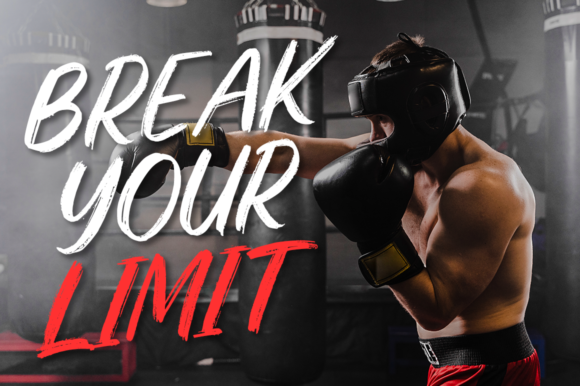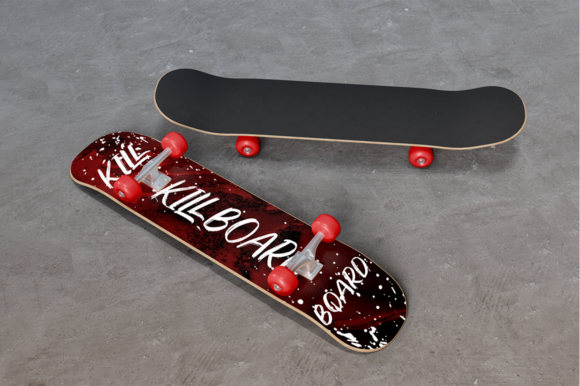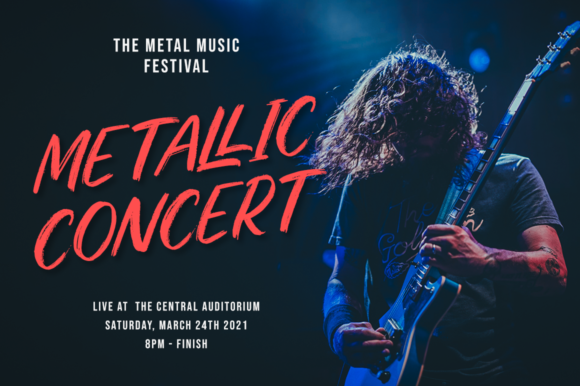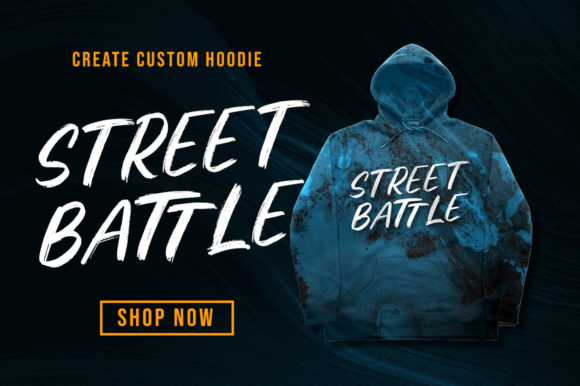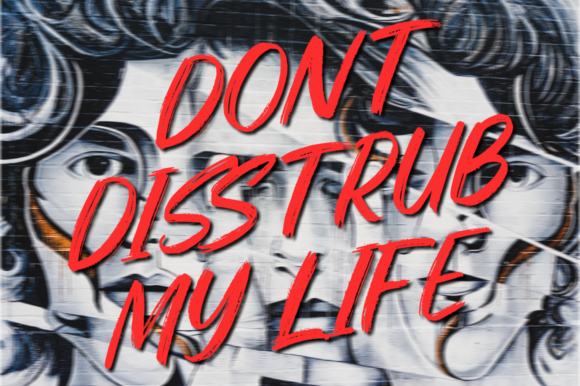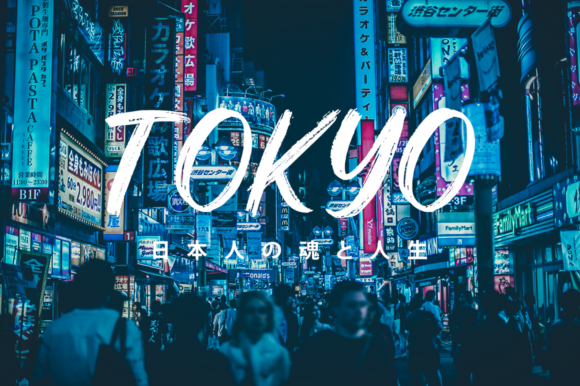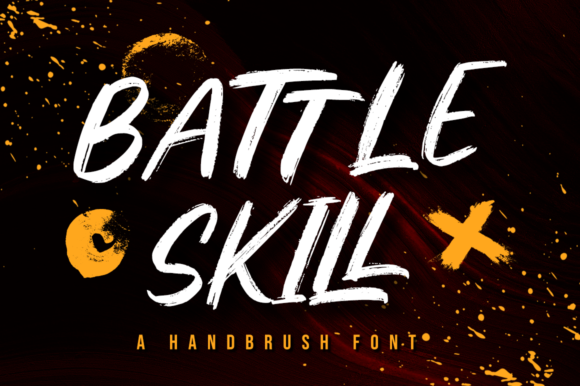
Unleash Your Creativity with Battle Skill Font: The Ultimate Modern Brush Font
Are you a designer, crafty enthusiast, or DIY expert looking for a versatile font to elevate your creative projects? Look no further than the Battle Skill Font, a modern brush font that is incredibly adaptable to various designs. This font is perfect for creating stunning branding, product packaging, invitations, quotes, t-shirts, labels, posters, logos, and more.
What Makes Battle Skill Font Stand Out?
Battle Skill Font is a game-changer in the world of typography. Its unique, modern brush style gives it a distinctive edge that sets it apart from other fonts. With its PUA (Private Use Area) encoding, you can easily access a wide range of modern glyphs and swashes, allowing you to experiment with different designs and styles.
Key Features of Battle Skill Font
- PUA Encoded: With PUA encoding, you can access all the modern glyphs and swashes with ease, giving you more creative freedom.
- Alternate Glyphs: The font features a range of alternate glyphs, allowing you to experiment with different styles and variations.
- Ligatures: Battle Skill Font also includes ligatures, which enable you to create beautiful, flowing text that adds a touch of elegance to your designs.
- Modern Brush Style: The font’s modern brush style gives it a fresh, contemporary look that’s perfect for a wide range of design projects.
Endless Design Possibilities with Battle Skill Font
The versatility of Battle Skill Font makes it suitable for various design projects, including:
- Branding: Create a strong brand identity with a unique and memorable font.
- Product Packaging: Add a touch of personality to your product packaging with a font that’s both modern and eye-catching.
- Invitations: Design beautiful invitations for special occasions, such as weddings, birthdays, and more.
- Quotes: Create inspiring and motivational quotes that stand out with Battle Skill Font.
- T-Shirts: Design stunning t-shirts with a font that’s both stylish and easy to read.
- Labels: Create custom labels for your products or gifts with a font that’s both modern and elegant.
- Posters: Design eye-catching posters that grab attention with Battle Skill Font.
- Logos: Create a unique and memorable logo for your business or brand with a font that’s both versatile and stylish.
Why Choose Battle Skill Font?
Battle Skill Font is an excellent choice for designers, crafty enthusiasts, and DIY experts who want a modern, versatile font that can elevate their creative projects. With its PUA encoding, alternate glyphs, ligatures, and modern brush style, this font offers endless design possibilities.
Tips for Using Battle Skill Font
- Experiment with Different Sizes: Battle Skill Font looks great in various sizes, from small to large.
- Play with Colors: The font’s modern brush style looks stunning in a range of colors, from bold and bright to soft and pastel.
- Mix and Match: Combine Battle Skill Font with other fonts to create a unique and eye-catching design.
Battle Skill Font is a powerful tool for designers, crafty enthusiasts, and DIY experts who want to create stunning designs that stand out. With its modern brush style, PUA encoding, alternate glyphs, and ligatures, this font offers endless creative possibilities. Whether you’re designing branding, product packaging, invitations, or more, Battle Skill Font is the perfect choice.